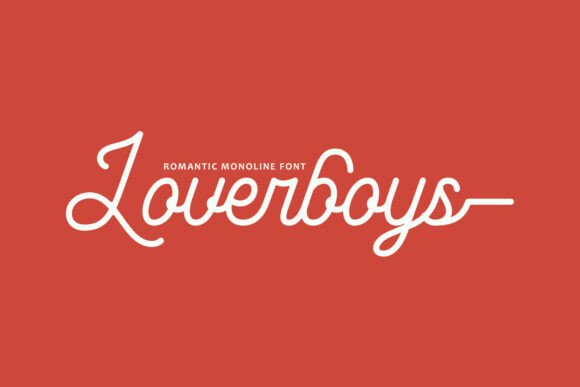
Loverboys Font: A Timeless Typeface for Elegant Designs
The Loverboys font is a stunning example of a monoline script typeface that exudes love, elegance, and simplicity. Its fluid, continuous strokes with consistent line thickness create a smooth, harmonious appearance that is perfect for projects that aim to evoke a sense of intimacy and sophistication. In this article, we’ll explore the characteristics, uses, and benefits of the Loverboys font, and why it’s an excellent choice for designers and crafters looking to add a touch of romance and refinement to their work.
What is Loverboys Font?
Loverboys font is a type of monoline script font that features smooth, flowing lines with consistent line thickness. This design gives the font a sleek, modern appearance that is both elegant and sophisticated. The font’s fluid strokes create a sense of movement and harmony, making it perfect for projects that require a touch of romance and whimsy.
Characteristics of Loverboys Font
The Loverboys font has several distinct characteristics that make it a popular choice for designers and crafters. Some of its key features include:
- Fluid, continuous strokes: The font’s smooth, flowing lines create a sense of movement and harmony.
- Consistent line thickness: The font’s consistent line thickness gives it a sleek, modern appearance.
- Elegant and sophisticated: The font’s design makes it perfect for projects that require a touch of romance and refinement.
- Versatile: The font’s minimal and graceful design makes it suitable for both modern and classic aesthetics.
Uses of Loverboys Font
The Loverboys font is perfect for a variety of projects that require a touch of elegance and sophistication. Some of its most popular uses include:
- Wedding invitations: The font’s romantic and elegant design makes it perfect for wedding invitations, save-the-date cards, and other wedding-related projects.
- Romantic quotes: The font’s smooth, flowing lines make it ideal for quoting romantic phrases, poems, or lyrics.
- Branding: The font’s sophisticated design makes it suitable for branding projects that require a touch of elegance and refinement.
- Personalized gifts: The font’s elegant design makes it perfect for creating personalized gifts, such as customized mugs, tote bags, or jewelry.
Benefits of Using Loverboys Font
The Loverboys font offers several benefits for designers and crafters, including:
- Elegance and sophistication: The font’s design adds a touch of romance and refinement to any project.
- Versatility: The font’s minimal and graceful design makes it suitable for both modern and classic aesthetics.
- Easy to read: The font’s smooth, flowing lines make it easy to read, even at small sizes.
- High-quality design: The font’s high-quality design ensures that it will look great in any project, from digital designs to print materials.
Tips for Using Loverboys Font
Here are some tips for using the Loverboys font in your projects:
- Use it sparingly: The font’s elegant design can be overwhelming if used excessively. Use it sparingly to add a touch of romance and refinement to your project.
- Pair it with complementary fonts: Pair the Loverboys font with complementary fonts to create a visually appealing design.
- Experiment with colors: The font’s smooth, flowing lines look great in a variety of colors. Experiment with different colors to find the perfect combination for your project.
- Pay attention to spacing: The font’s elegant design requires careful attention to spacing. Make sure to leave enough space between lines and words to create a clean, sophisticated look.
The Loverboys font is a timeless typeface that captures the essence of love, elegance, and simplicity. Its fluid, continuous strokes with consistent line thickness create a smooth, harmonious appearance that is perfect for projects that aim to evoke a sense of intimacy and sophistication. Whether you’re designing wedding invitations, romantic quotes, branding materials, or personalized gifts, the Loverboys font is an excellent choice. Its versatility, elegance, and sophistication make it a popular choice among designers and crafters. So why not give it a try and add a touch of romance and refinement to your next project?
- What is the Loverboys font?: The Loverboys font is a monoline script typeface that features fluid, continuous strokes with consistent line thickness.
- What is the Loverboys font used for?: The Loverboys font is perfect for projects that require a touch of elegance and sophistication, such as wedding invitations, romantic quotes, branding, and personalized gifts.
- Is the Loverboys font easy to read?: Yes, the Loverboys font is easy to read, even at small sizes, thanks to its smooth, flowing lines.